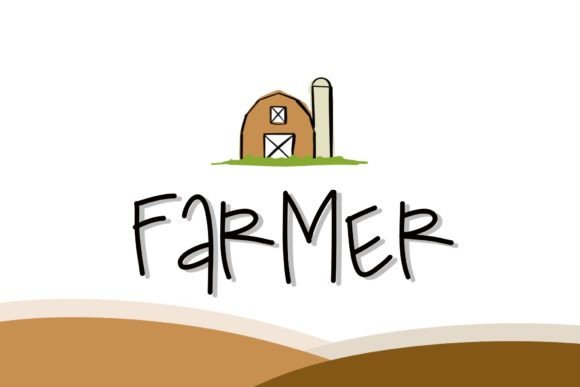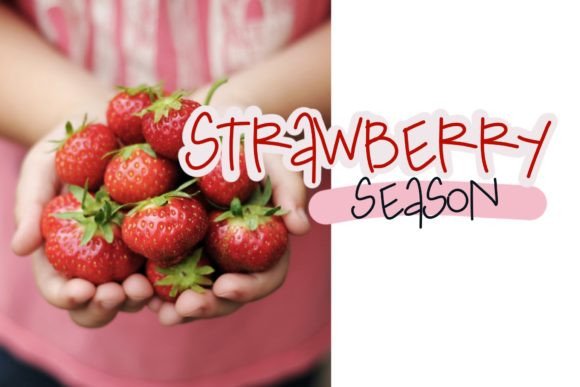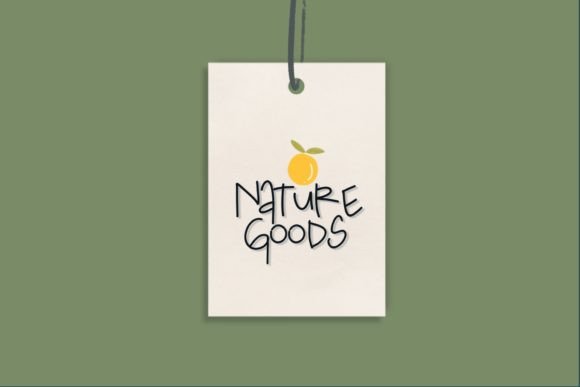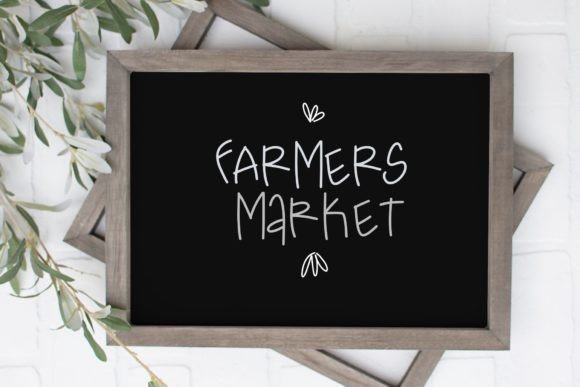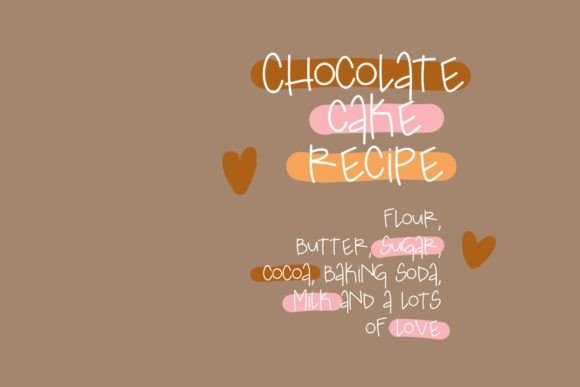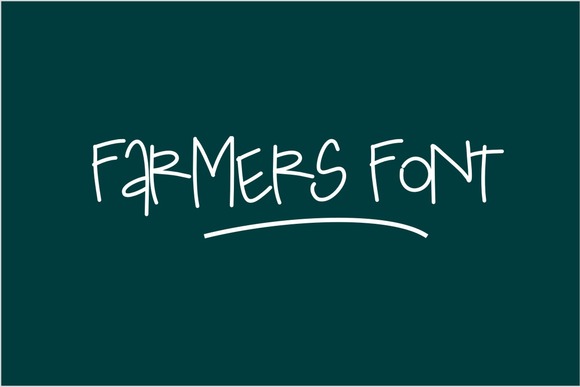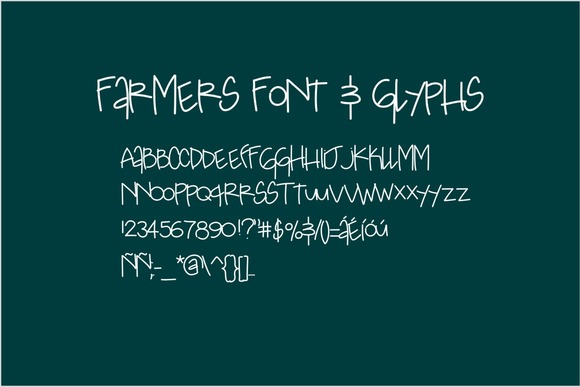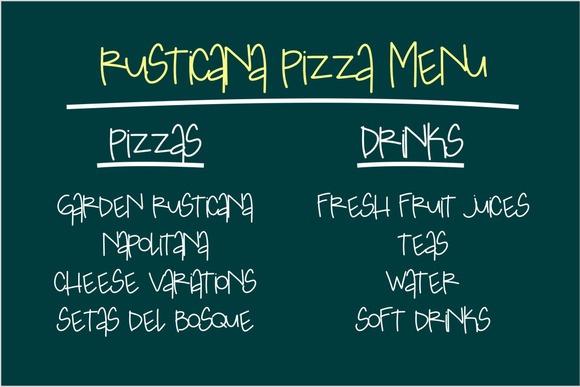
Farmers Font
About Farmers Font
Farmer font is an irregular glyph font. It combines small and caps. Designed for a restaurant blackboard and very suitable for many other designs. Be creative with it!